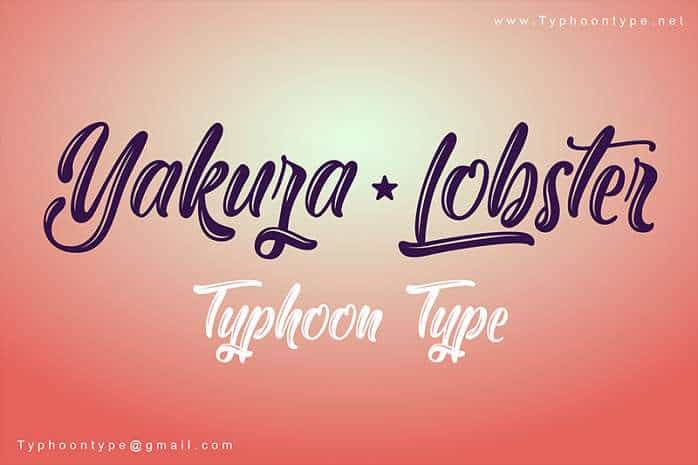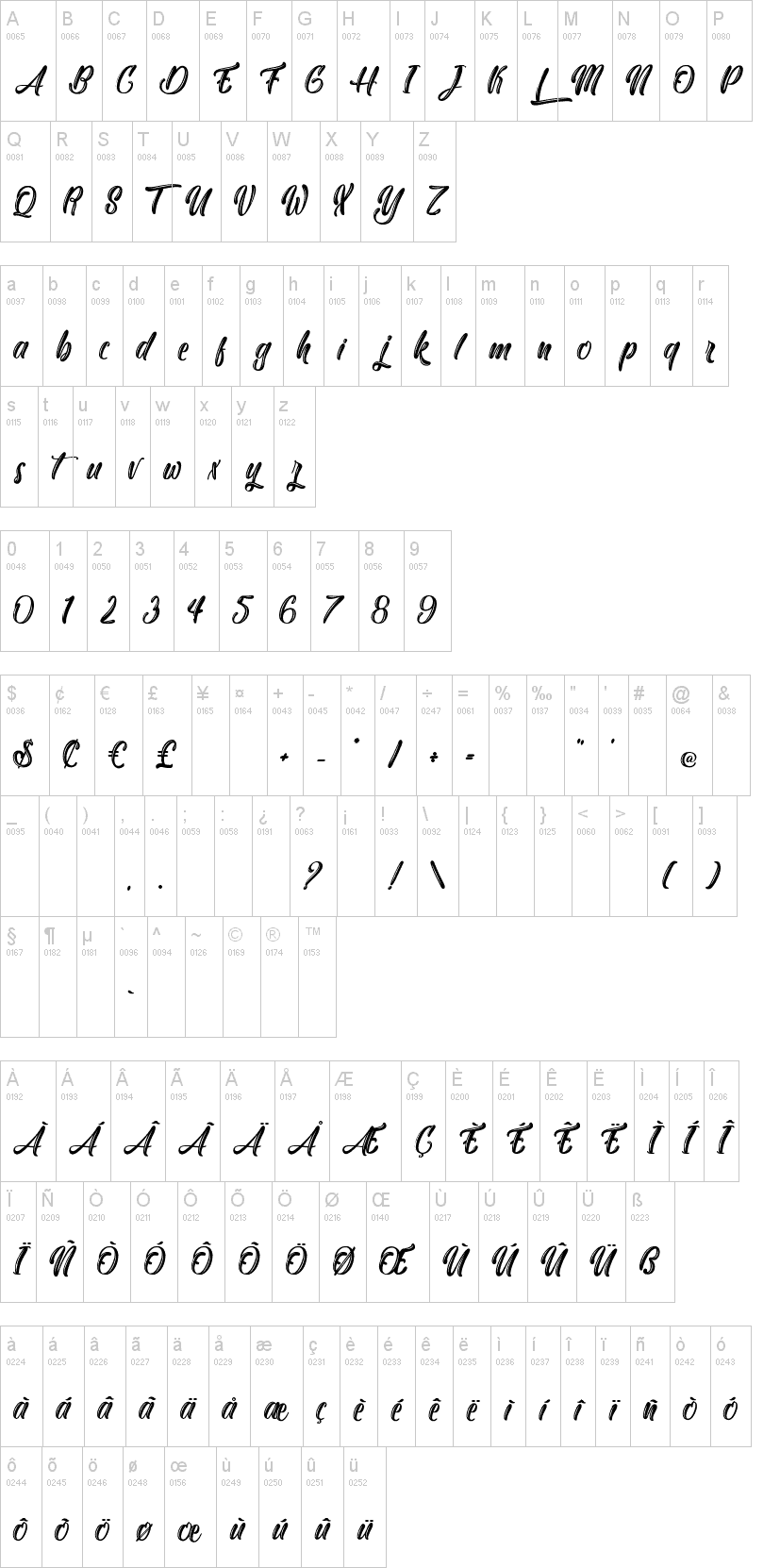
Yakuza Lobster font is a rounded type font that has a lot of weight to it. It is suitable for all kinds of different tasks, for example logos, advertisements, product labelling and wrapping, clothing and many others.